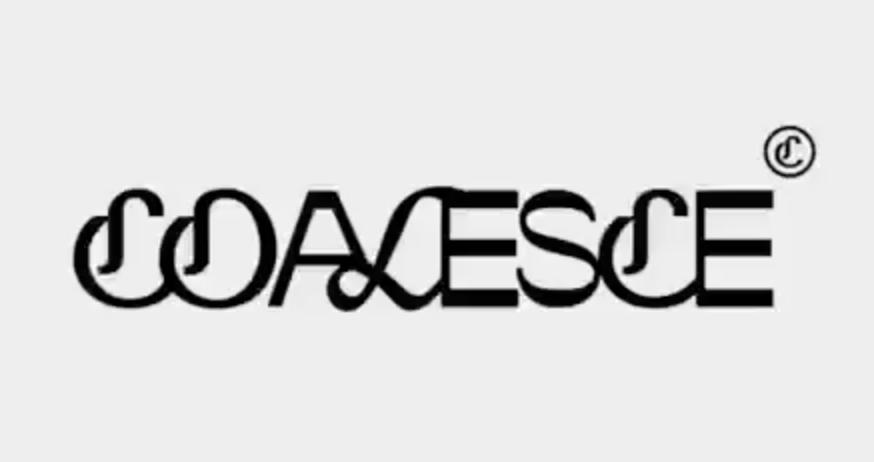
Looking for the font used in the Coalesce logo from this Instagram post
I'm trying to identify one of the fonts used in this logo. It combines two fonts, and the one I'm looking for is used in the letters "C," "O," and "L" (the "L" is italic).
The font seems to be a kind of "Sans Blackletter." It has the structure of blackletter typography but with simplified, sans-serif shapes.
The logo was taken from this Instagram post, where the design is featured.
I've also attached a screenshot of the logo for reference.
Seconding the Opposit ID for the Es and S, though it is a bit of a stretch for the A.
CO(L)C might have been adapted from Blocus (the L looks to be something else entirely—maybe inspired by Ogg?).
It's definitely Blocus. In the attachments, you can see additional characters used in the branding, and it's clear they match Blocus.
I agree that the "L" is Ogg Italic. It seems likely that the designer edited the weight and proportions of all three fonts.
I also agree that Opposite might be the sans font, judging by the "S" and "E." This isn’t much of a concern, though, since my main interest was in Blocus